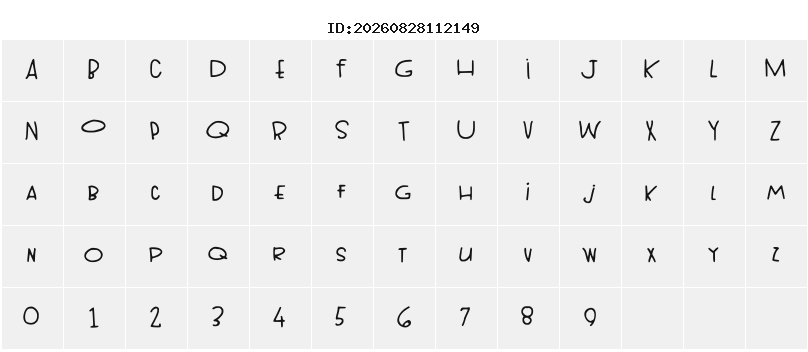
TopHeavy Preview
• Font Name: TopHeavy
• Font Style: Heavy
• Full Font Name: TopHeavy
• PostScript Name: TopHeavy
About TopHeavy.ttf
TopHeavy.ttf is a modern, elegant sans-serif font designed for ultimate readability and visual harmony. Perfect for branding, headlines, web design, and print materials.